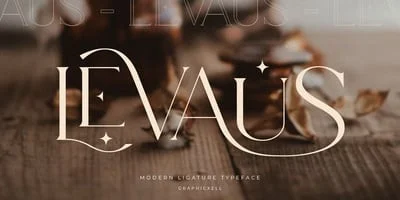
Levaus Font
The Levaus Font is perfect for contemporary art galleries, modern architecture firms, cutting-edge technology brands, innovative startup logos, sleek product catalogs, progressive design studios, forward-thinking corporate identities, and avant-garde editorial layouts. This distinctive typeface excels in applications where innovation and artistic vision need to be communicated clearly, making it ideal for both digital platforms and print materials that require sophisticated modernism.
What makes Levaus Font exciting is its unique blend of artistic innovation and practical functionality that pushes typographic boundaries. The font's unconventional letterforms and creative character construction create a sense of forward-thinking design philosophy, making it perfect for brands that want to position themselves as industry leaders and creative pioneers. Its distinctive personality and modern edge ensure that every application stands out while maintaining excellent readability and professional appeal.
The Levaus Font family typically includes regular, medium, and bold weights, often featuring experimental alternates, artistic ligatures, and special characters that enhance its creative potential. Many versions include extended Unicode support, stylistic sets, and contextual alternates that provide designers with powerful tools for creating unique and memorable typographic compositions.
For designers working on projects that demand creative distinction and contemporary relevance, Levaus Font provides exceptional creative possibilities. Its ability to instantly communicate innovation and artistic sophistication makes it an essential choice for creative agencies, tech companies, and any project requiring typography that embodies progressive thinking and cutting-edge design sensibilities.